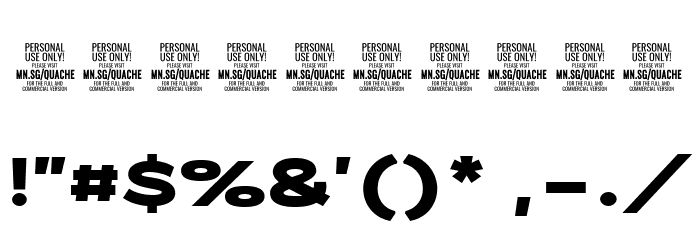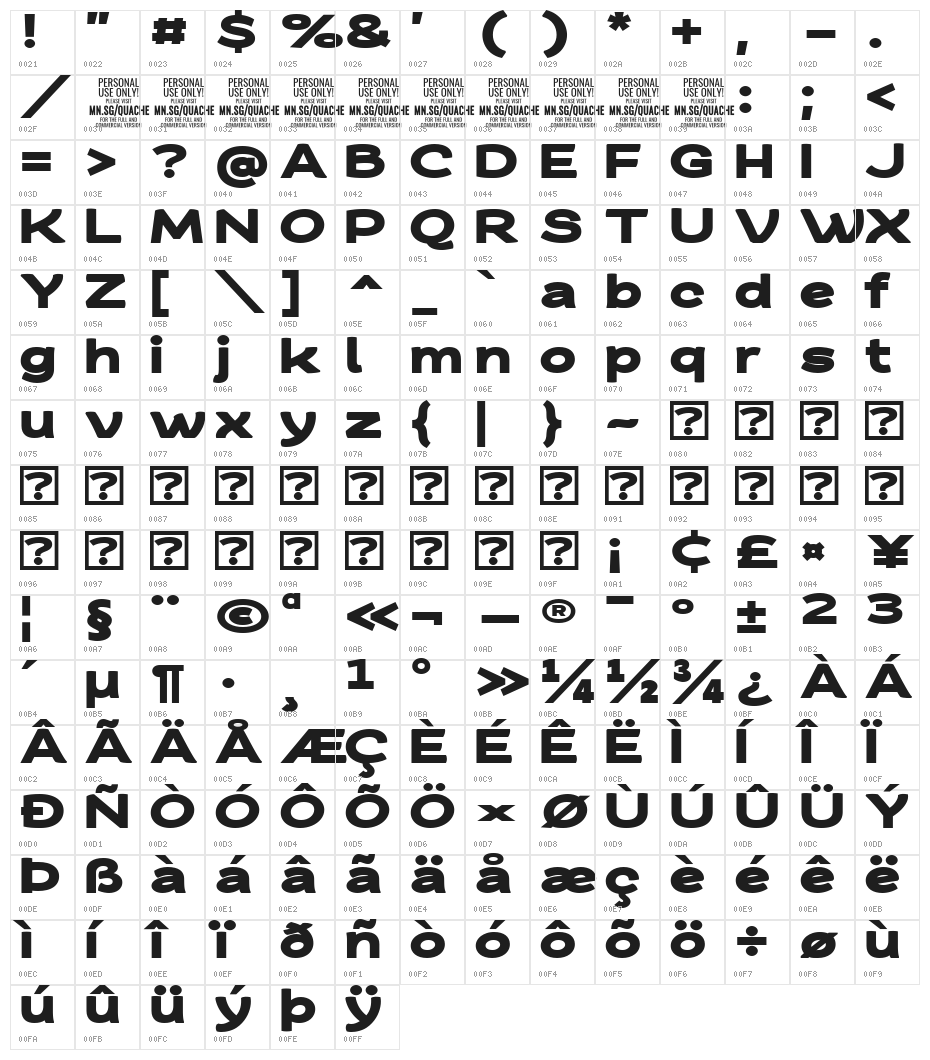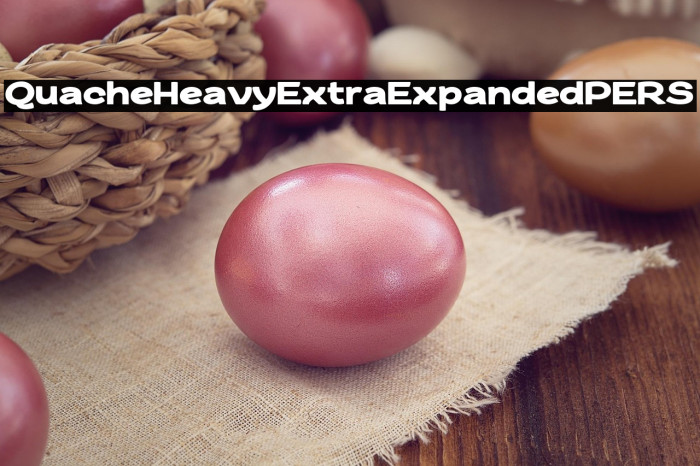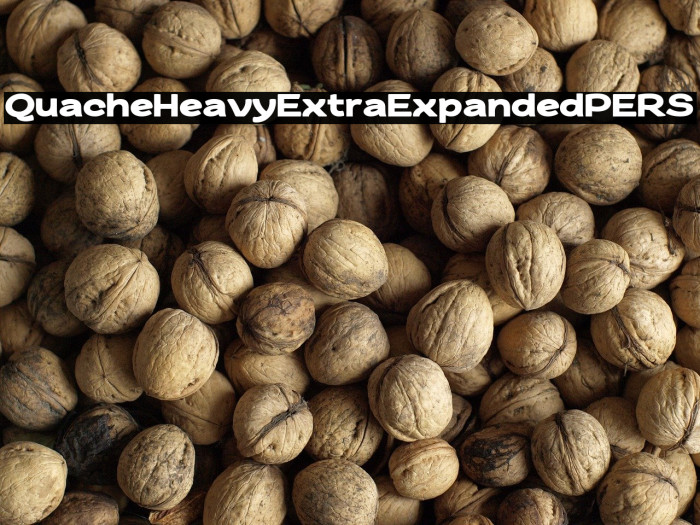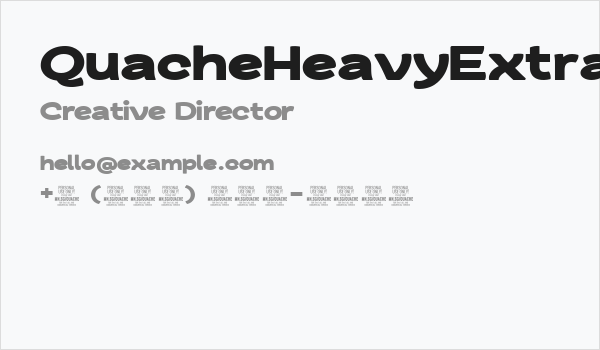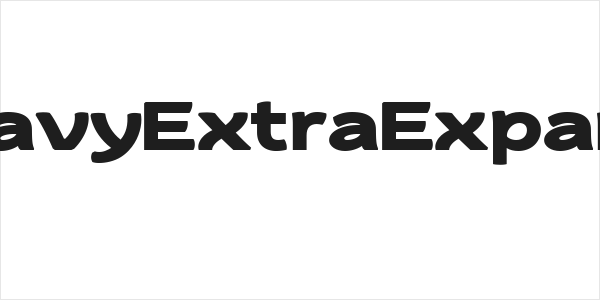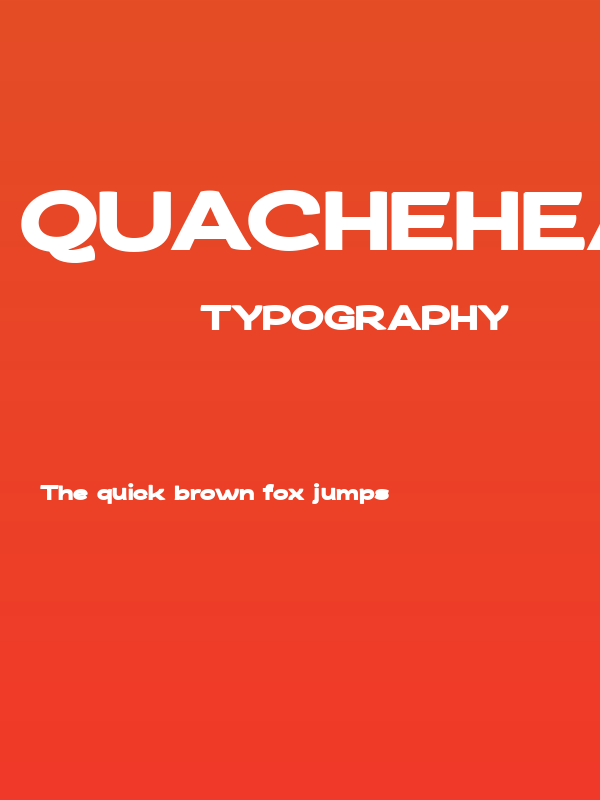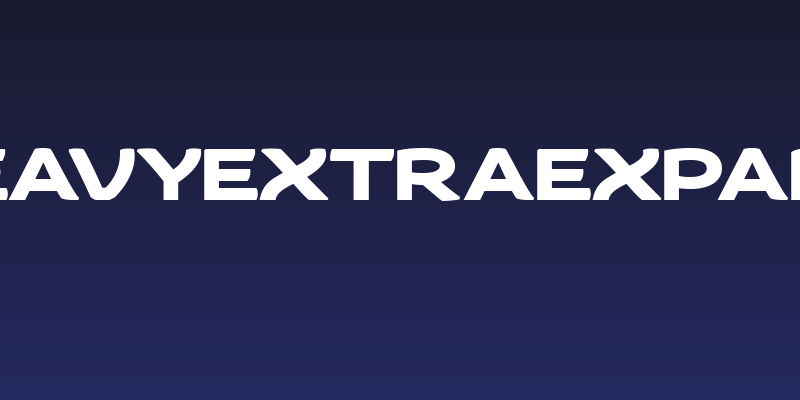
QuacheHeavyExtraExpandedPERS Font
QuacheHeavyExtraExpandedPERS Description
This font features a bold and heavy appearance with extra expanded letterforms, creating a strong and impactful visual presence. The characters are well-defined with a modern and geometric style, making them highly legible. The uppercase and lowercase letters maintain a consistent weight, while the numerals and special characters are designed to complement the overall aesthetic. The font's expanded width gives it a unique and commanding look, suitable for making statements in design projects.
| Proposed Projects | Ideal for headlines, posters, branding, and any project requiring a strong visual impact. |